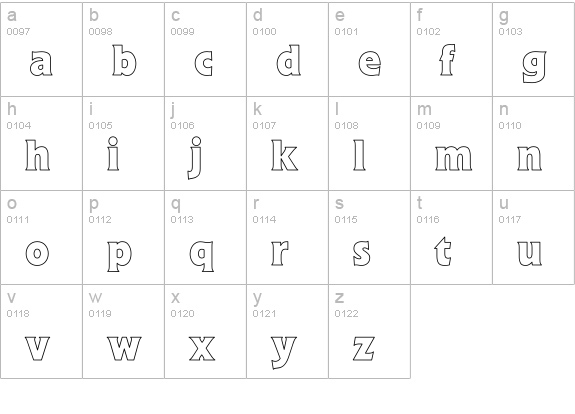
Flick Bold Hollow Font Details
Flick Bold Hollow is a strong, high-contrast variant in the Flick typeface family \xE2\x80\x94 well suited to headlines, attention-grabbing titles, and strong calls-to-action.
Flick Bold Hollow font is a modern and sleek typeface that exudes a sense of confidence and sophistication. Its bold and hollow design makes it perfect for creating eye-catching titles, headers, and logos that demand attention. The clean lines and geometric shapes give this font a contemporary and stylish look that is sure to elevate any design project. What makes Flick Bold Hollow font even more appealing is that it is available for free download at FontsMarket.com. This means that you can easily access this versatile and striking font to enhance your creative projects without any cost. Whether you're working on branding, advertising, web design, or any other graphic design project, Flick Bold Hollow font is a fantastic choice that will make your text stand out. Download it today and add a touch of modern elegance to your designs.